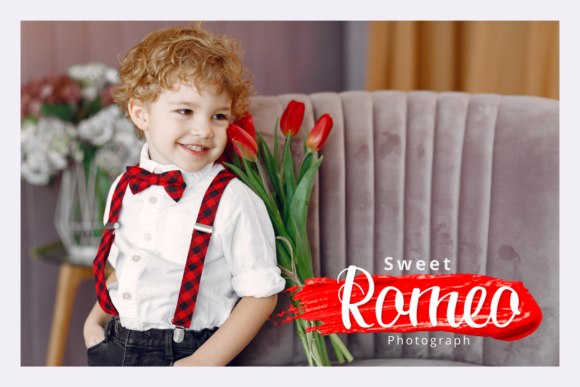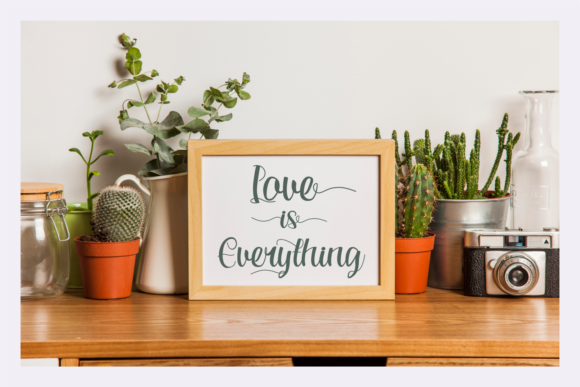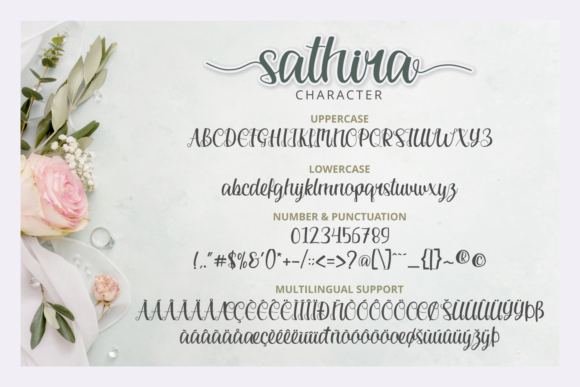
Introduction to Sathira Font
As a designer, there’s nothing quite like the thrill of discovering a new, high-quality font that elevates your creative project to the next level. For me, that moment came when I stumbled upon the enchanting Sathira Font. Its unique, handwritten charm instantly captured my attention, and I knew I had to learn more.
With its PUA encoded features and stunning alternates, the Sathira Font is a game-changer for designers seeking a versatile design resource. Whether you’re crafting a beautiful wedding invitation, designing eye-catching social media posts, or creating gorgeous stationary art, this font is sure to impress. And the best part? It’s available for free download, making it an invaluable addition to any designer’s toolkit.
For designers who value high-quality, unique fonts with transparent backgrounds, the Sathira Font is a must-have. Its smooth lines, gorgeous glyphs, and stunning alternates make it perfect for a wide range of creative projects, from cute greeting cards to stunning social media posts. In this article, we’ll delve into the world of the Sathira Font and explore its many uses and benefits.
Key Features of Sathira Font
- High-quality design resource ideal for creative projects requiring elegant and sophisticated typography.
- Features a transparent background, allowing for seamless integration into any design or creative project.
- Designed with a modern aesthetic, Sathira Font is perfect for use in a variety of contexts, from branding and marketing materials to digital products and websites.
- Includes a range of characters, including uppercase and lowercase letters, numbers, and punctuation marks, making it a versatile design resource.
- Available in 5 different font weights, from light to bold, allowing designers to customize the look and feel of their project.
Honest Review: Sathira Font
As a designer, I’m always on the lookout for high-quality design resources to elevate my creative projects. The Sathira Font caught my attention, and I decided to give it a try. Here’s my honest review.
- The Sathira Font has a unique, elegant design that’s perfect for a variety of creative projects.
- The font is highly customizable, allowing for a transparent background, which is a huge plus for designers who need to overlay text on images.
- The font is available in various weights, making it easy to choose the right style for your project.
- The font may not be suitable for projects that require a more modern or edgy look.
- The font is not available in as many languages as some other popular fonts.
Overall, I’m impressed with the Sathira Font. It’s a great addition to any designer’s toolkit, and its high quality and customization options make it a valuable design resource. While it may have some limitations, I think it’s a great choice for designers who are looking for a unique and elegant font for their creative projects.
Tips for Getting the Most Out of Sathira Font
To maximize the creative potential of Sathira Font, use it for your next design project and experiment with different font sizes, colors, and combinations.
Sathira Font is ideal for creating eye-catching headings, titles, and logos for various creative projects, such as branding, packaging, and advertising materials.